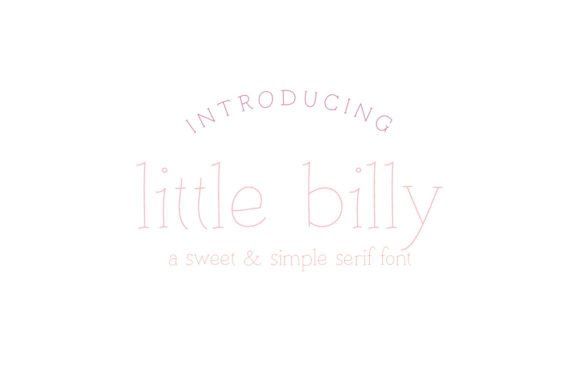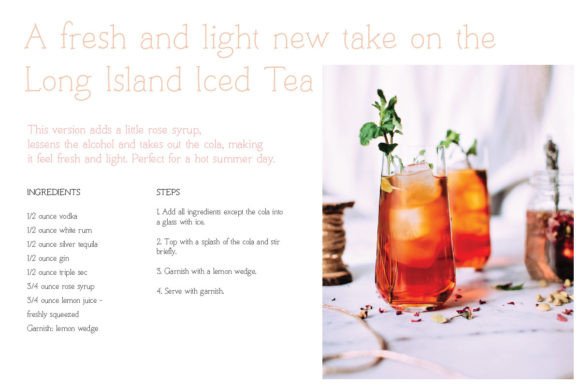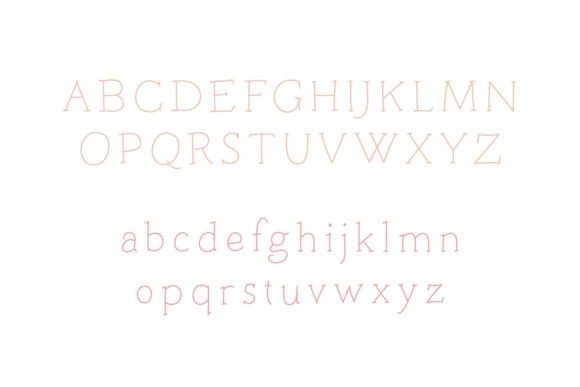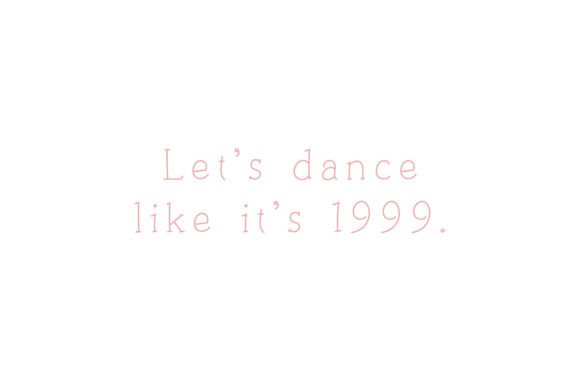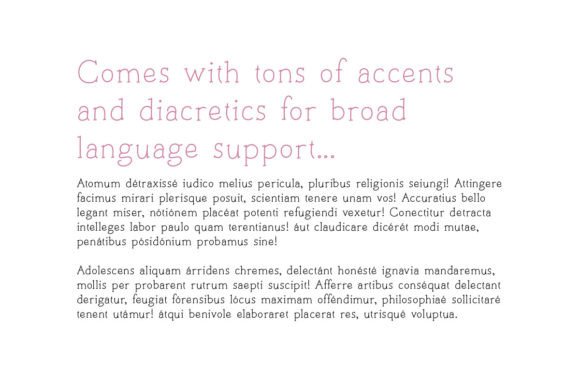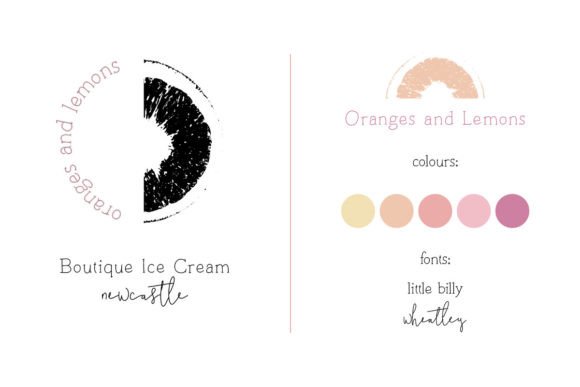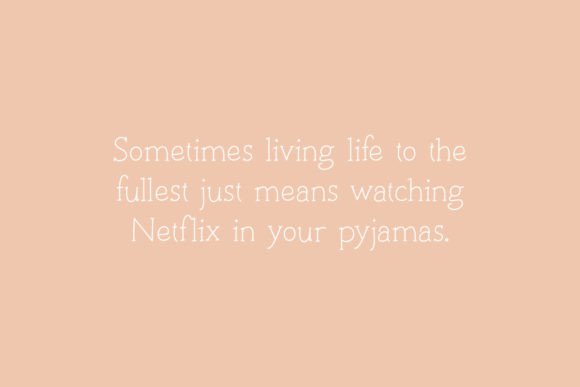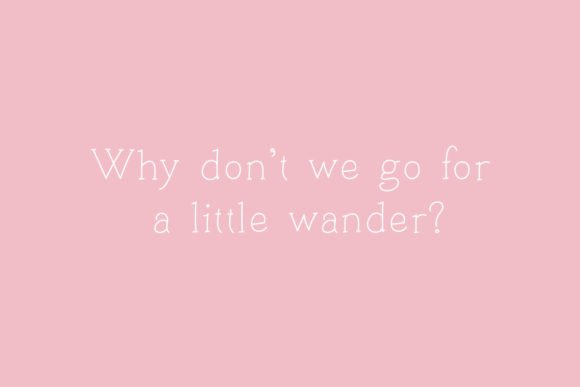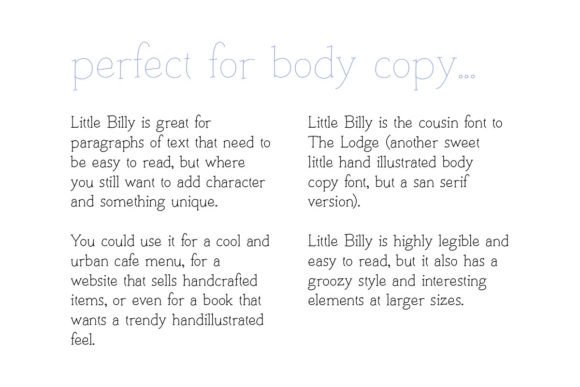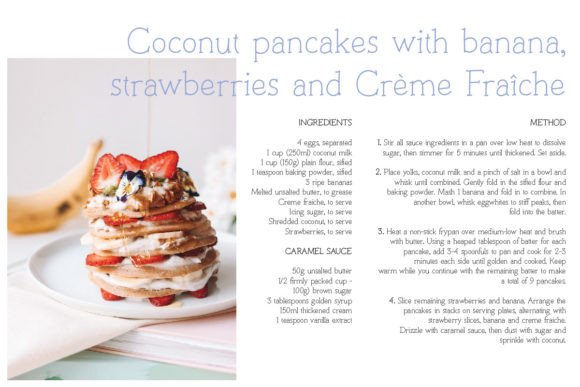
Little Billy Font
About Little Billy Font
Little Billy is a charming handwritten font that blends simplicity with personality. Designed to be both fun and readable, this font adds a touch of warmth and individuality to your creative work. The Little Billy font download is especially suited for designers and creators who want a friendly, illustrated touch while maintaining excellent legibility.
The rounded letterforms and balanced spacing make this typeface easy on the eyes, even in long-form text. It’s the perfect balance of playful and professional—ideal for designs that need to feel approachable and handcrafted.
Where to Use Little Billy Font
Whether you’re working on digital or print projects, the Little Billy font download fits effortlessly into a wide range of applications:
• Children’s Books & Story Pages – Whimsical, easy to read, and full of charm
• Menus & Recipe Cards – Add a casual, home-cooked feel
• Educational Materials – Great for classrooms and learning activities
• Quotes & Social Media Graphics – Bring words to life with a friendly style
• Websites & Blogs – Perfect for storytelling and kid-friendly platforms
• Greeting Cards & Invitations – Adds a sweet, handmade vibe
No matter the project, this handwritten font adds a personal and engaging touch.
• Style: Playful handwritten sans serif
• Legibility: Clean and highly readable, even at small sizes
• Multilingual Support: Included
Why Choose Little Billy?
If you’re searching for a font that feels both personal and professional, the Little Billy font download delivers. It’s perfect for creatives who want to strike the right balance between fun and readability. Its soft curves, gentle flow, and modern handwritten feel make it a dependable choice for many kinds of projects—especially when you want your message to feel warm, thoughtful, and handcrafted.